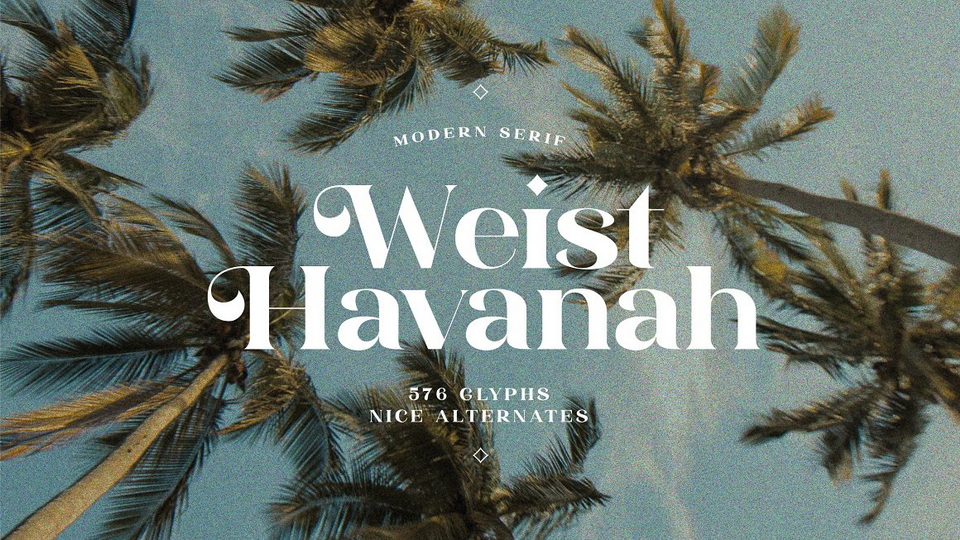
Download Weist Havanah font, a modern display serif typeface with beautiful uppercase lettering and a touch of fashionable look. Weist Havanah is perfectly suitable for creating nice, fashionable, lifestyle design such as logos, mash head, title, and wedding paper.
Designer: Harmonais Visual